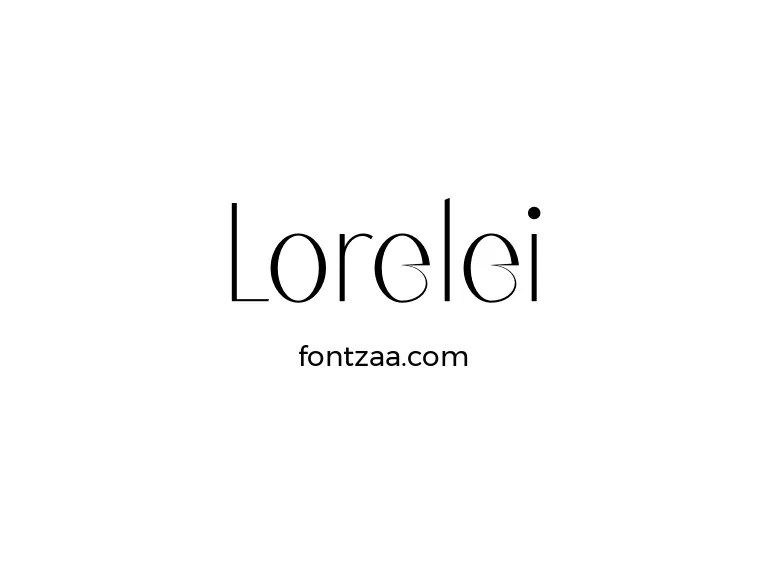
Lorelei Font
Lorelei Font combines distinctive character shapes with a elegant appearance suited to display-focused design. With its distinctive letterforms, Lorelei Font can introduce a elegant character into creative display work. The font can work as the primary visual element in a minimal layout or as part of a more detailed composition. Using generous space around the lettering can help the details of the typeface remain visible instead of competing with other elements. The typeface can change considerably depending on tracking, scale, alignment, background and surrounding imagery. The font can be considered for projects such as invitations, wedding stationery, signatures, quotes and elegant branding. Designers should evaluate the typeface inside the real project because a standalone preview cannot show every possible visual combination. Previewing the final layout on both large and small screens helps identify spacing and readability problems early. The designer or publisher information available for this typeface is Unknown Publisher. License details are currently listed as Free for personal use. Users should verify the supplied documentation before using the font in products or paid projects. A few quick layout variations can help determine where the font creates the strongest visual result.
The visual character of Lorelei Font makes it an interesting choice for designers working on headlines, branding and promotional layouts. The font can work as the primary visual element in a minimal layout or as part of a more detailed composition. Using generous space around the lettering can help the details of the typeface remain visible instead of competing with other elements. The typeface can change considerably depending on tracking, scale, alignment, background and surrounding imagery. Creative uses may range from invitations, wedding stationery, signatures, quotes and elegant branding, with different results depending on scale and layout. Keeping secondary typography simple often allows the distinctive qualities of the main font to remain more visible. Print and digital layouts may require different sizing and spacing, so testing the actual output dimensions is recommended. The available source information lists Unknown Publisher as the designer or publisher. Current license information is shown as Free for personal use; checking the original documentation is recommended before client or commercial work. Its final appearance will depend heavily on the surrounding colors, imagery, spacing and supporting typography.
Designers exploring a elegant typeface can use Lorelei Font to add a more recognizable visual voice to digital and print projects. Testing several arrangements before choosing the final version can reveal which characteristics of the typeface work best. The typeface can change considerably depending on tracking, scale, alignment, background and surrounding imagery. Its letter shapes become especially noticeable at larger sizes, where spacing and proportions can be explored more clearly. Possible applications include invitations, wedding stationery, signatures, quotes and elegant branding. Print and digital layouts may require different sizing and spacing, so testing the actual output dimensions is recommended. For layouts containing longer information, pairing it with a simpler supporting typeface can improve readability and hierarchy. Source metadata currently associates the font with Unknown Publisher. License details are currently listed as Free for personal use. Users should verify the supplied documentation before using the font in products or paid projects. The most effective treatment will vary by project, so designers should compare several versions before finalizing the artwork.
Lorelei Font Family
Designers can use the Lorelei Font Family in several ways by varying scale, alignment, background treatment and supporting typography. Lorelei Font stands out through its individual shapes and can become an important visual element in font-family exploration. Different color combinations can make the same font feel subtle, energetic, premium or highly decorative. The typeface can change considerably depending on tracking, scale, alignment, background and surrounding imagery. Testing several arrangements before choosing the final version can reveal which characteristics of the typeface work best. Creative uses may range from invitations, wedding stationery, signatures, quotes and elegant branding, with different results depending on scale and layout. Print and digital layouts may require different sizing and spacing, so testing the actual output dimensions is recommended. Previewing the final layout on both large and small screens helps identify spacing and readability problems early. According to the available font information, the typeface is associated with Unknown Publisher. The listed license is Free for personal use, although users should still review the original font package before commercial use. A few quick layout variations can help determine where the font creates the strongest visual result.
What Makes Lorelei Font Stand Out
Lorelei Font stands out through its individual shapes and can become an important visual element in the visual characteristics and design personality of the typeface. Its letter shapes become especially noticeable at larger sizes, where spacing and proportions can be explored more clearly. Testing several arrangements before choosing the final version can reveal which characteristics of the typeface work best. Different color combinations can make the same font feel subtle, energetic, premium or highly decorative. Creative uses may range from invitations, wedding stationery, signatures, quotes and elegant branding, with different results depending on scale and layout. Designers should evaluate the typeface inside the real project because a standalone preview cannot show every possible visual combination. Previewing the final layout on both large and small screens helps identify spacing and readability problems early. The available source information lists Unknown Publisher as the designer or publisher. Current license information is shown as Free for personal use; checking the original documentation is recommended before client or commercial work. The most effective treatment will vary by project, so designers should compare several versions before finalizing the artwork.
Lorelei Font for Logo and Branding Design
With its distinctive letterforms, Lorelei Font can introduce a elegant character into logos, wordmarks and visual identity systems. The typeface can change considerably depending on tracking, scale, alignment, background and surrounding imagery. Different color combinations can make the same font feel subtle, energetic, premium or highly decorative. The font can work as the primary visual element in a minimal layout or as part of a more detailed composition. Creative uses may range from invitations, wedding stationery, signatures, quotes and elegant branding, with different results depending on scale and layout. Designers should evaluate the typeface inside the real project because a standalone preview cannot show every possible visual combination. Print and digital layouts may require different sizing and spacing, so testing the actual output dimensions is recommended. According to the available font information, the typeface is associated with Unknown Publisher. The listed license is Free for personal use, although users should still review the original font package before commercial use. Its final appearance will depend heavily on the surrounding colors, imagery, spacing and supporting typography.
Social Media Ideas With Lorelei Font
The visual character of Lorelei Font makes it an interesting choice for designers working on posters, campaigns, thumbnails and promotional content. Its letter shapes become especially noticeable at larger sizes, where spacing and proportions can be explored more clearly. The font can work as the primary visual element in a minimal layout or as part of a more detailed composition. Different color combinations can make the same font feel subtle, energetic, premium or highly decorative. Designers may explore it across invitations, wedding stationery, signatures, quotes and elegant branding, depending on the tone and requirements of the project. Previewing the final layout on both large and small screens helps identify spacing and readability problems early. Designers should evaluate the typeface inside the real project because a standalone preview cannot show every possible visual combination. The designer or publisher information available for this typeface is Unknown Publisher. Current license information is shown as Free for personal use; checking the original documentation is recommended before client or commercial work. The most effective treatment will vary by project, so designers should compare several versions before finalizing the artwork.
Tips for Better Results With Lorelei Font
Lorelei Font stands out through its individual shapes and can become an important visual element in spacing, contrast, scale and layout decisions. Using generous space around the lettering can help the details of the typeface remain visible instead of competing with other elements. Different color combinations can make the same font feel subtle, energetic, premium or highly decorative. The typeface can change considerably depending on tracking, scale, alignment, background and surrounding imagery. Possible applications include invitations, wedding stationery, signatures, quotes and elegant branding. Keeping secondary typography simple often allows the distinctive qualities of the main font to remain more visible. A clean serif or sans serif companion can handle smaller text while this font remains focused on headlines and key messages. The designer or publisher information available for this typeface is Unknown Publisher. Current license information is shown as Free for personal use; checking the original documentation is recommended before client or commercial work. Experimenting directly in the intended design is usually the best way to judge whether the typeface suits the project.